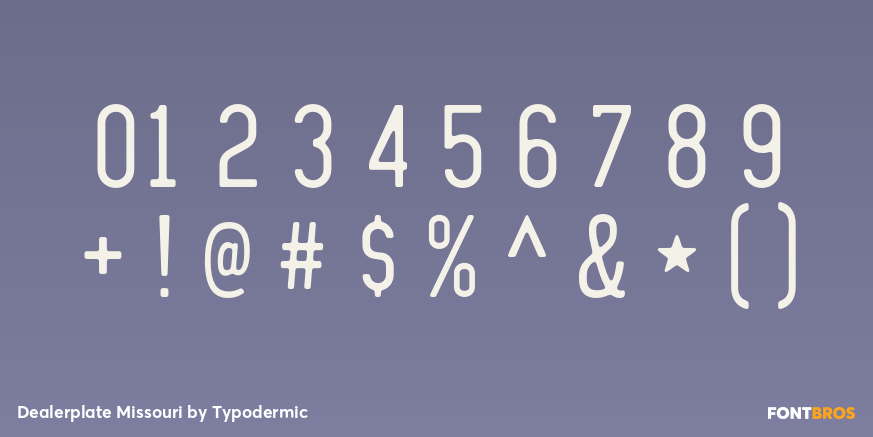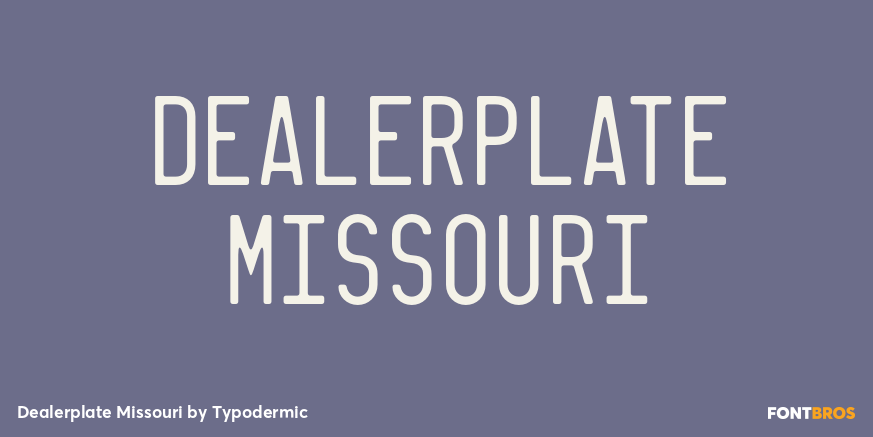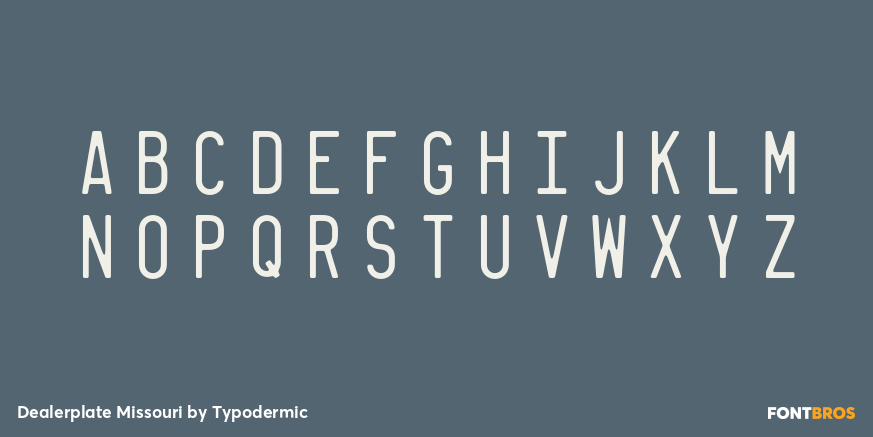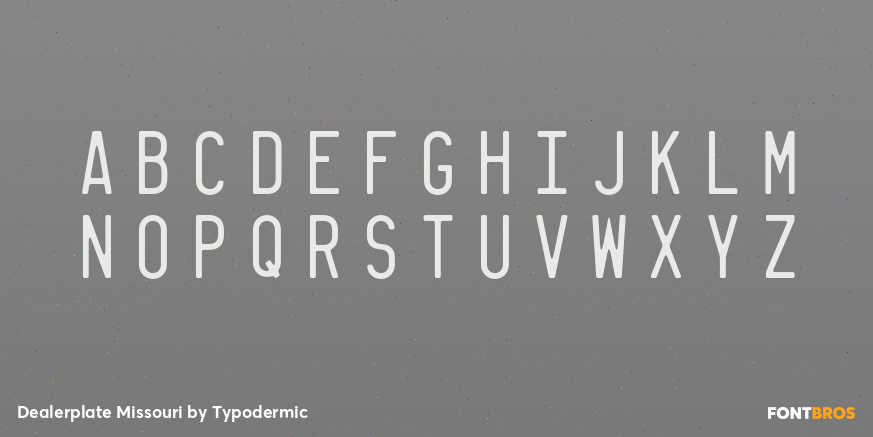
Dealerplate Missouri
Dealerplate Missouri develops Missouri-inspired plate lettering into a full alphabet for regional vehicle props and digital environments. It allows productions to invent registrations, place names, and supporting labels that retain the feel of a Missouri plate rather than substituting a one-size-fits-all license-plate face.
Use it for St. Louis or Kansas City stories, Midwestern road films, trucking and driving games, police-procedural props, virtual-production traffic, impound documents, evidence photography, parking permits, and automotive exhibits. The style is designed to connect the plate with related case labels, dealership inserts, vehicle-selection screens, and location graphics so the regional cue survives beyond one close-up.